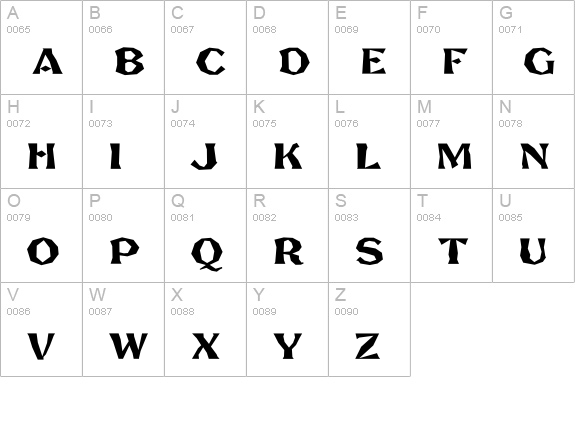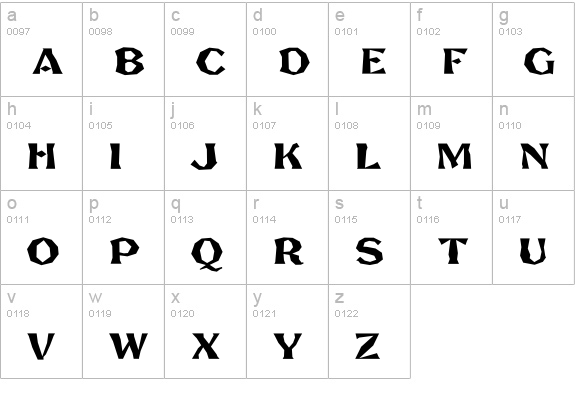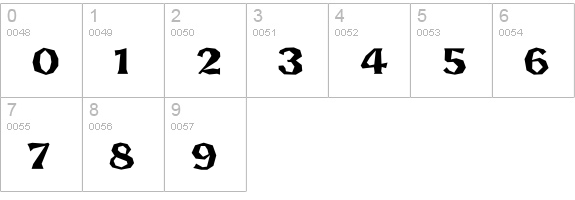
FHA Brokn Gothic BustdA NC Font Details
FHA Brokn Gothic BustdA NC is a stunning display font that combines ruggedness with a touch of elegance. With its broken, distressed appearance, this font exudes a sense of mystery and intrigue, making it perfect for projects that require a bold and edgy look. This font features uniquely designed uppercase and lowercase letters, each intricately crafted to give your designs a distinctive, handcrafted feel. The letters are slightly irregular, adding to the font's charm and making it stand out from the crowd. FHA Brokn Gothic BustdA NC is ideal for various design projects, including logos, headlines, posters, and signage. It works exceptionally well in vintage or grunge-themed designs, adding an extra layer of authenticity and character. One of the best things about FHA Brokn Gothic BustdA NC is that it is free to download at FontsMarket.com. This means that you can use this font in your personal or commercial projects without any restrictions. Whether you're a professional designer or a hobbyist, this font gives you the freedom to create stunning visuals without breaking the bank. So, if you're looking for a versatile and eye-catching font that will make your designs pop, look no further than FHA Brokn Gothic BustdA NC. Download it for free at FontsMarket.com and unleash your creativity today.